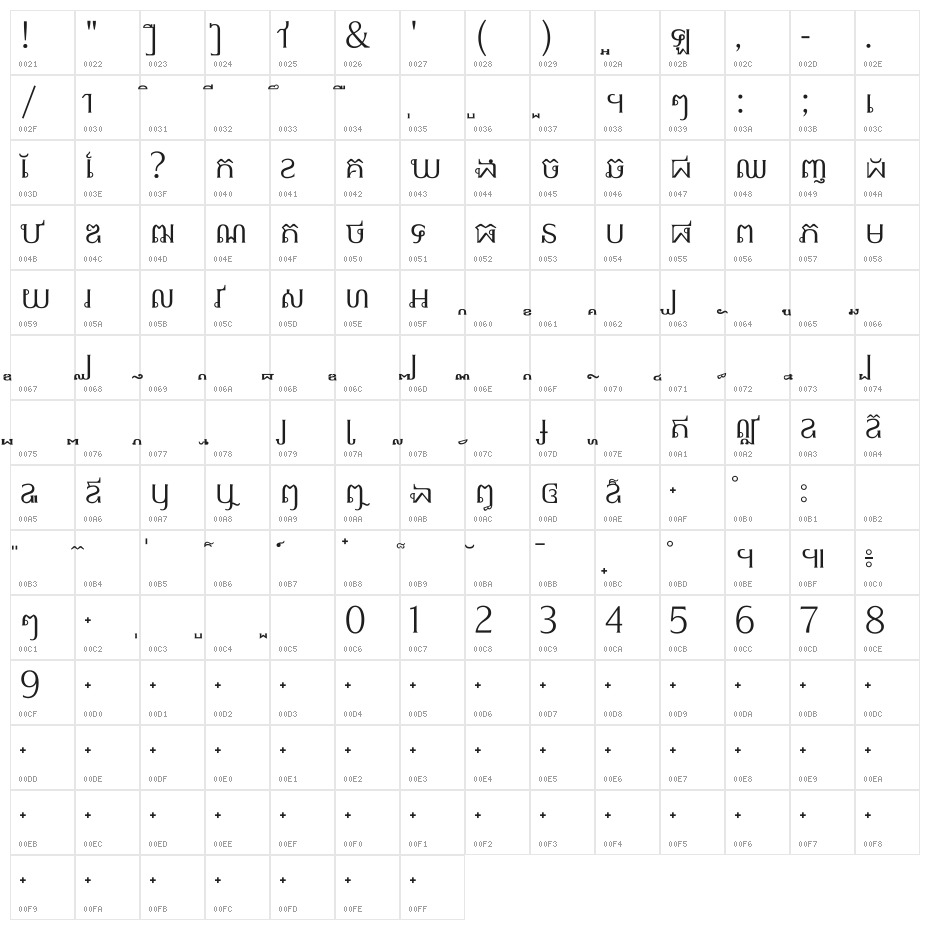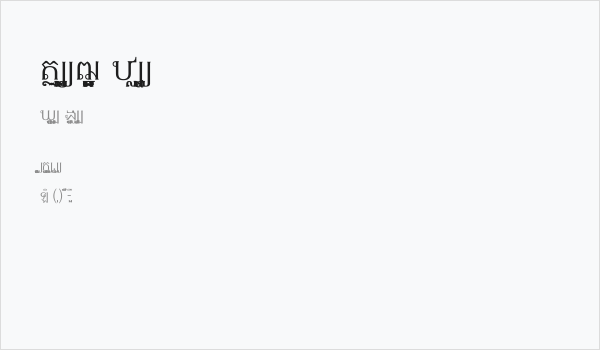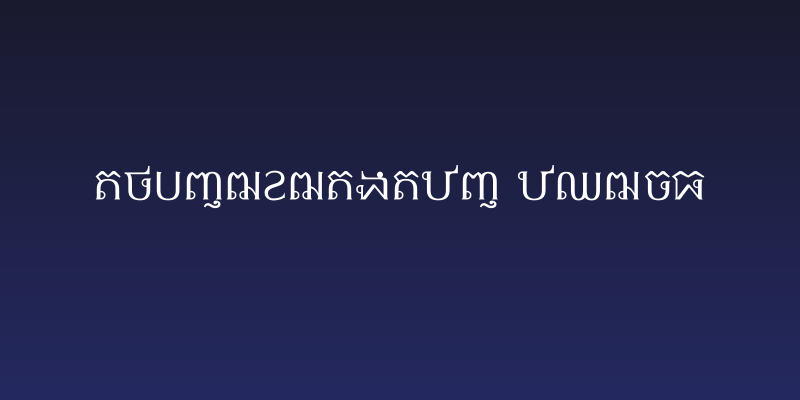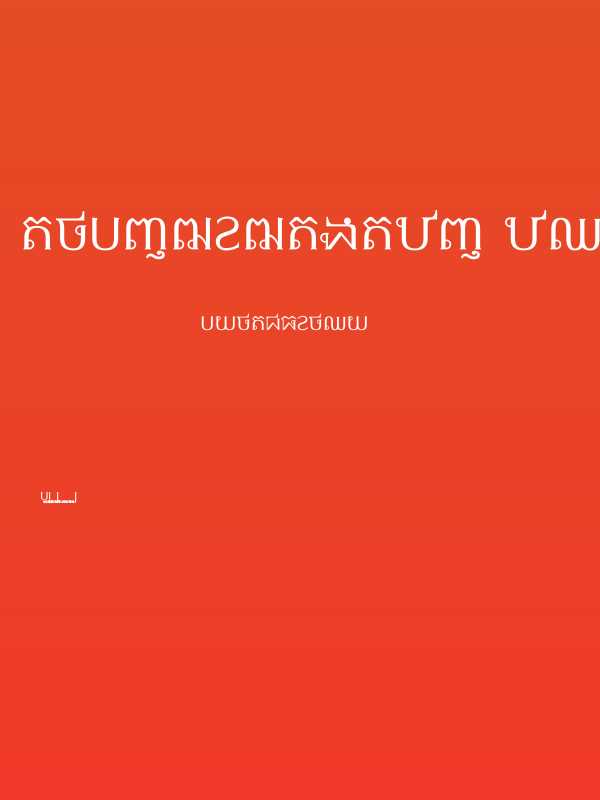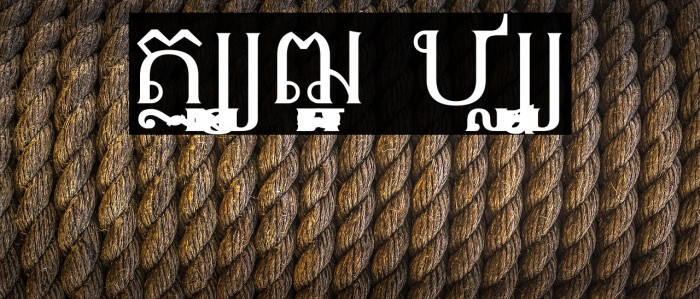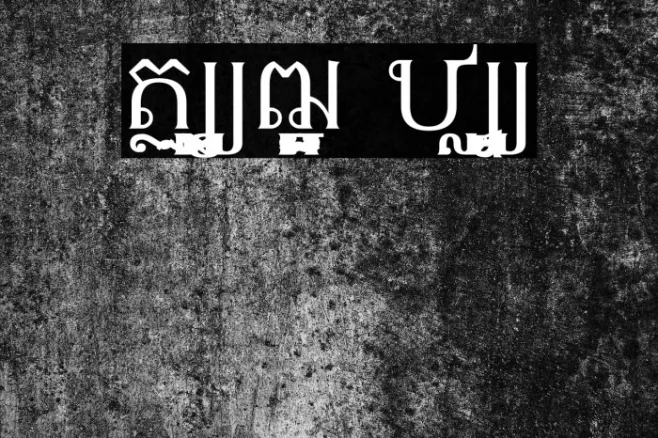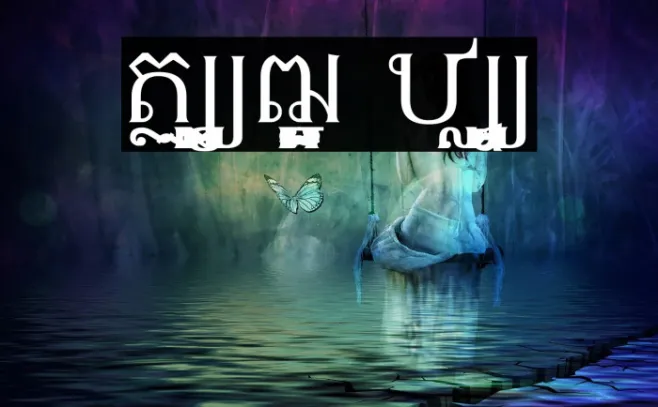
OptimaModoki Khmer Font
OptimaModoki Khmer Description
This font features a unique blend of traditional Khmer script with a modern twist. The characters are elegantly crafted with a balance of curves and sharp edges, giving it a distinctive and artistic appearance. The strokes vary in thickness, adding a dynamic and lively feel to the text. The font maintains a sense of harmony and rhythm, making it visually appealing and easy to read. It is suitable for both formal and creative applications, offering versatility in its use. The design is both culturally rich and contemporary, making it ideal for projects that aim to bridge traditional and modern aesthetics.
| Use Case | Headlines, Logos, Cultural projects |
| Proposed Projects | Ideal for cultural publications, artistic designs, branding, and modern editorial layouts. |